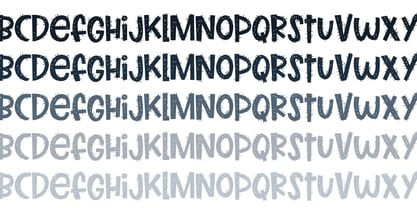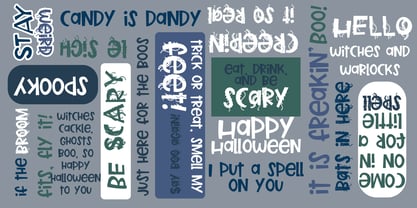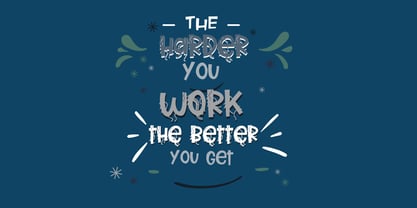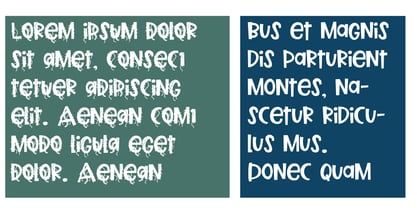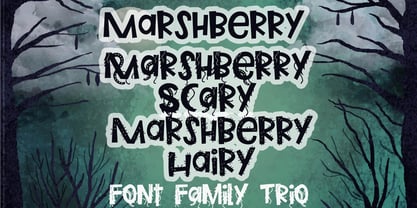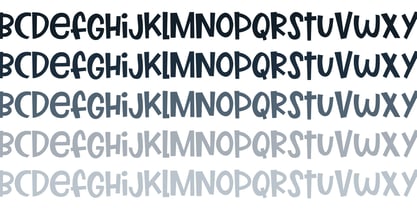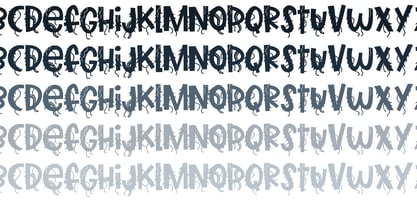
PN Marshberry
by Illustration Ink
The PN Marshberry Font Family was designed by Illustration Ink and published by Illustration Ink. PN Marshberry contains 11 styles and family package options.
This hand-crafted font trio is a whimsical sans serif with a bouncy baseline, accompanied by a scary version sporting tenacles and a hairy version with short, pokes of hair. Hand-crafted fonts can be either formal or informal, and they can be used for a variety of purposes. Some of the characteristics of handwritten fonts include: The letters are not perfectly uniform in size or shape. There may be slight variations in the spacing between letters and words. The font may have a "wiggly" or "squiggly" appearance. The font may be difficult to read at small sizes. Handwritten fonts can be a great way to add a casual touch to your designs. They can also be used to create a sense of nostalgia or whimsy. However, it is important to choose a handwritten font that is appropriate for the project you are working on. A formal handwritten font may not be appropriate for a casual invitation, while an informal handwritten font may not be appropriate for a corporate document.
About Illustration Ink
Illustration Ink has been at the forefront of creating unique and innovative fonts and digital art since 1994. Renowned for their ability to produce a diverse range of high-quality fonts and digital art at affordable prices, their products have gained immense popularity among quilting companies, scrapbookers, crafters, and educators. You can also discover their creations under various brands, including Creating Keepsakes fonts, Jillustration products, and Doodlebats. Illustration Ink fonts are ideal for achieving a charming “handmade” aesthetic, making them perfect for titles, journaling, and scrapbooking projects. With a focus on creativity and craftsmanship, Illustration Ink stands out in the industry, catering to those who appreciate artistic expression in their work.